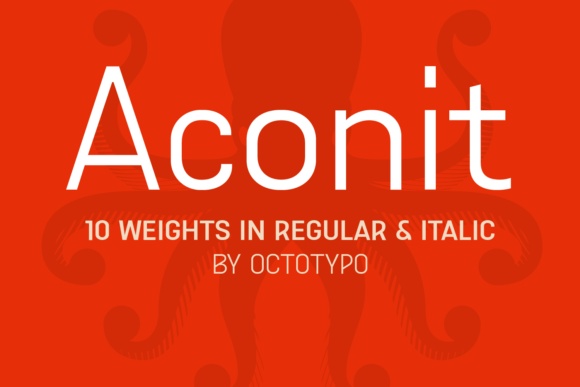
The Aconit Font: A Modern Sans Serif Marvel for Designers
I’ll never forget the design project that led me to discover the Aconit font. I was working on a poster for a tech conference, and I needed a font that would blend modernity with a touch of art nouveau flair. After hours of scouring font libraries, I stumbled upon Aconit, and it was love at first sight! ✨ In this article, I’ll share my experience with this versatile font, its features, and how to make the most of it in your designs.
An Honest Review of Aconit Font
What I Love About Aconit
• ✅ Modern sans serif with a twist: Aconit’s unique blend of tech and art nouveau elements sets it apart from other sans serif fonts.
• ✅ Extensive weight range: With 10 weights from Filament to Bazooka, Aconit offers a wide range of options for designers to experiment with.
• ✅ Language support: Aconit supports a large range of languages, making it an excellent choice for global design projects.
• ✅ Arrows and glyphs: The font comes with a set of arrows and glyphs, perfect for adding a creative touch to designs.
While Aconit is an excellent font, there are a few things to keep in mind: 🤔
• ⚠️ Some weights may be too bold: The heavier weights, like Bazooka, can be overwhelming if not used judiciously.
• ⚠️ Limited serif options: As a sans serif font, Aconit may not be the best choice for designs that require a traditional serif look.
The Backstory of Aconit Font
Aconit was designed with the goal of blending modernity with art nouveau elements. The font’s creator aimed to craft a versatile sans serif font that would be suitable for a wide range of design projects, from tech and gaming to art and craft. 💻
Q: What is the Aconit font family?
A: The Aconit font family is a modern sans serif font family with a mix of tech and art nouveau elements, available in 10 weights with matching italics.
Q: What languages does Aconit support?
A: Aconit supports a large range of languages, making it an excellent choice for global design projects.